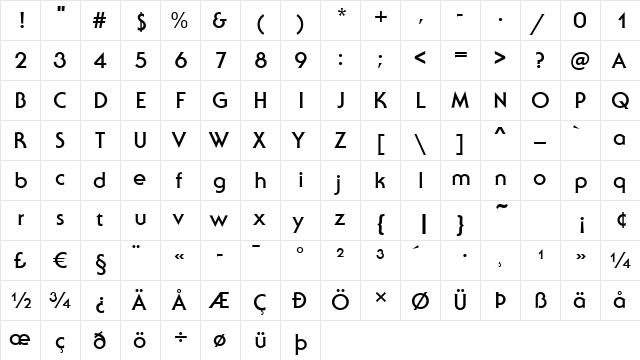
Sebastian Bold
Design Context for Sebastian Typeface
Sebastian offers clean, dependable letterforms without strong stylistic allegiance, making it a practical choice for designers who need flexibility. Its bold stroke weight gives it real presence on the page.